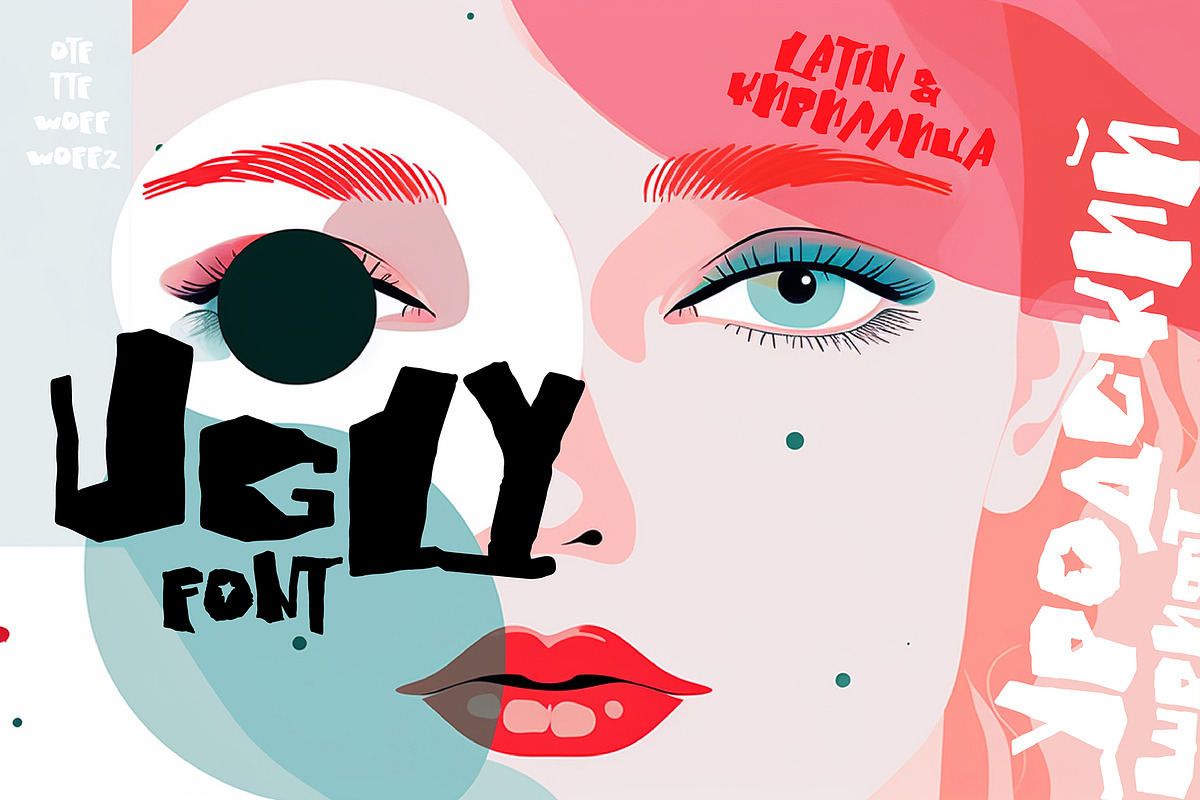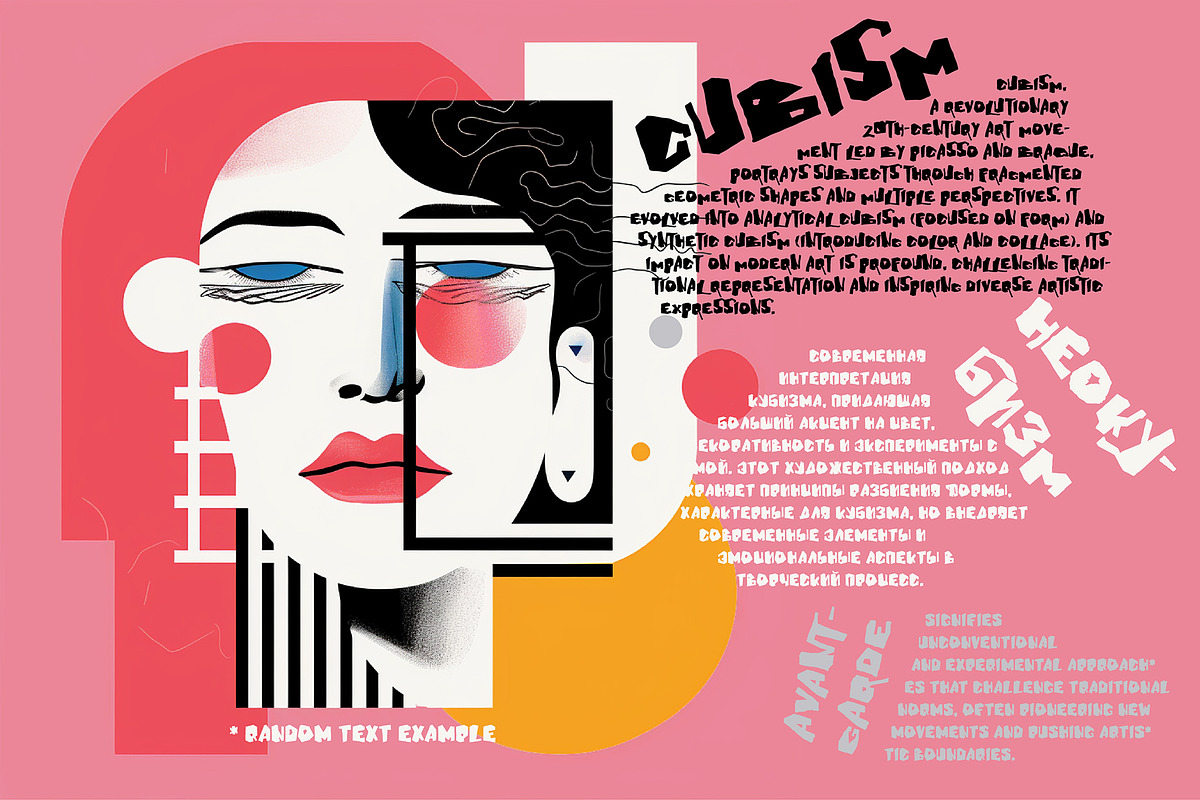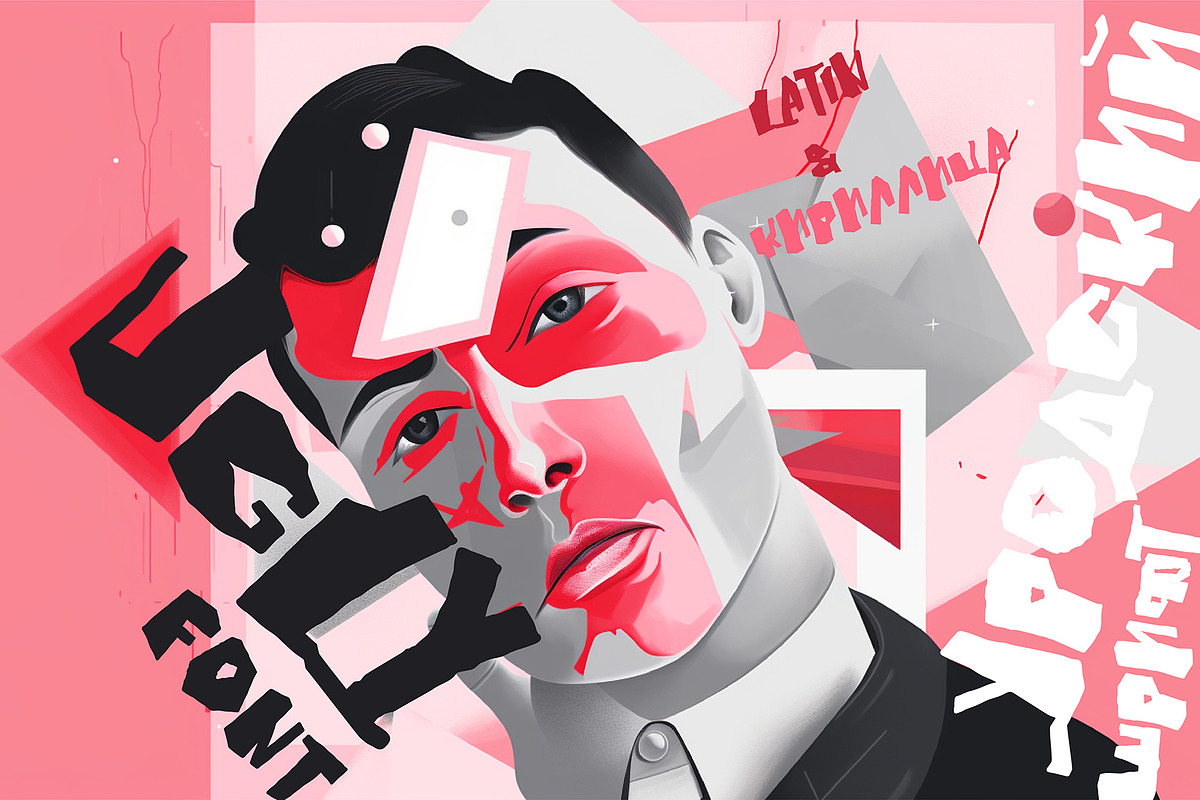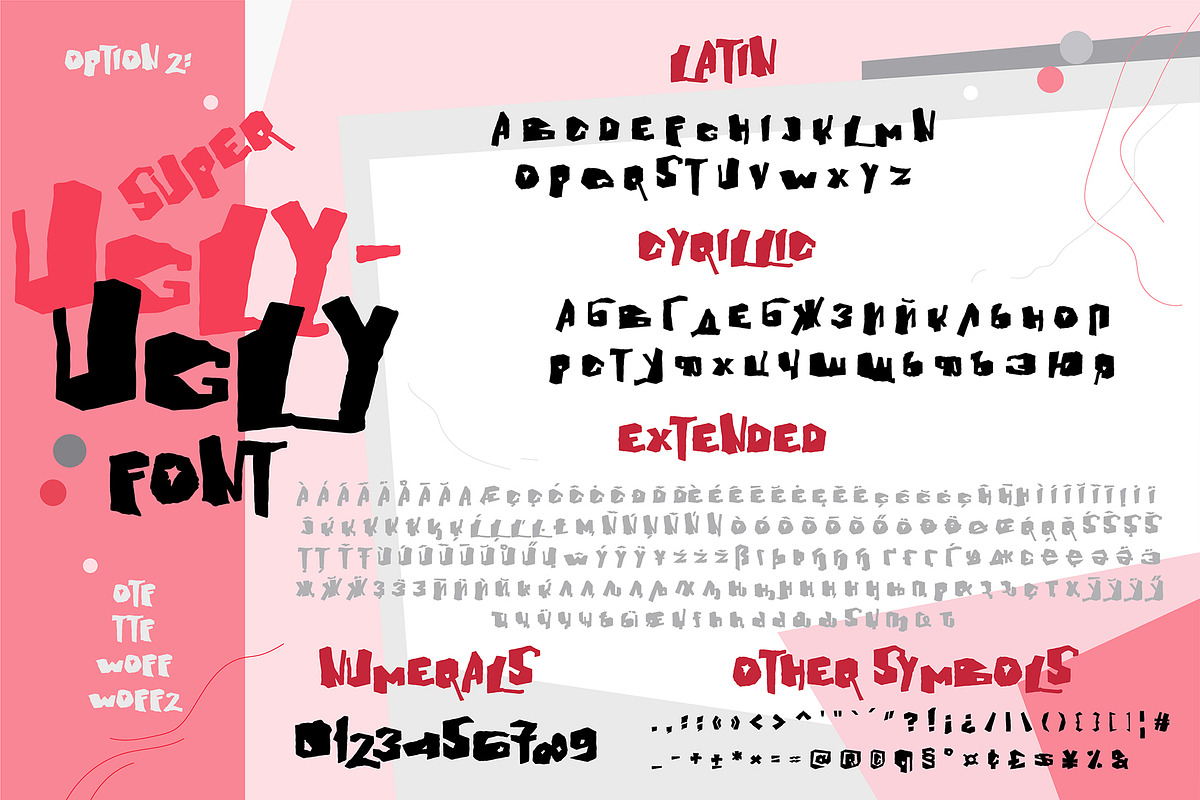
Ugly font
Original font, creative in its ugliness for the most playful designs:)
Font features:
- two variations: more flatter ("Ugly") and completely crooked ("Ugly-Ugly").
- EXTENDED LATIN and CYRILLIC characters (please check your text in the box above to see if your language is available.)
- UPPERCASE letters only (it means that lowercase letters look the same as uppercase letters)